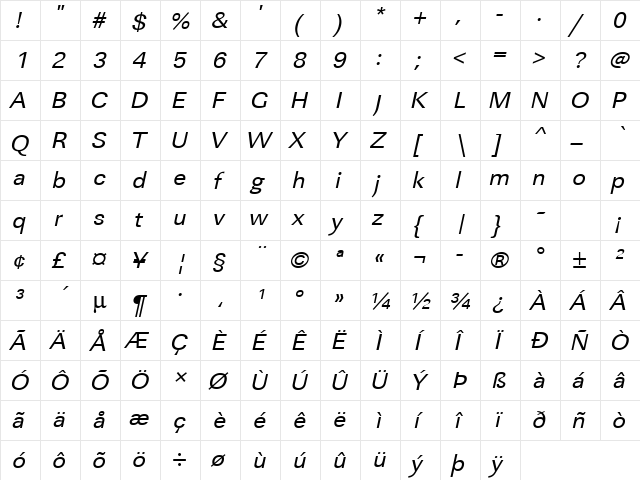
URWLinearTWid Oblique
Design Context for URWLinearTWid Typeface
URWLinearTWid takes a measured approach to typography — its balanced proportions and neutral character make it a reliable workhorse for both digital and print work. Its italic angle brings a sense of urgency and motion to the letterforms.
Pro Tip: Use URWLinearTWid for emphasis, pull quotes, and subheadings where its slanted energy can add rhythm to the layout.